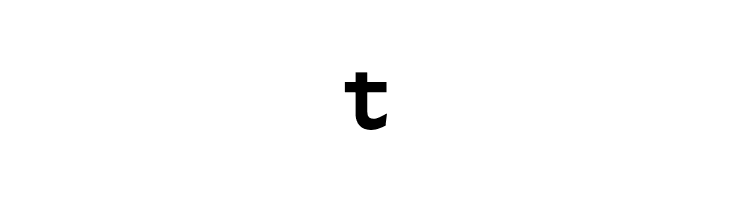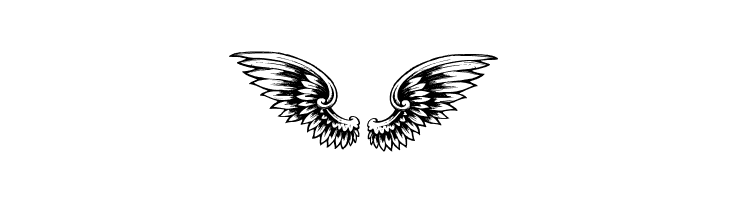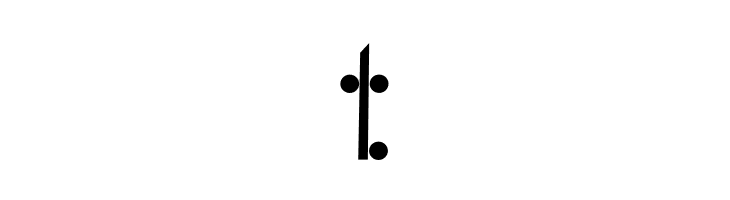
A fluid, elegant script font with a natural handwritten style.
A playful script font with characters hanging from strings, offering a whimsical and dynamic look.
A modern, semi-bold sans-serif font with clean lines and balanced proportions.
A bold, playful font with a comic book style from the 1980s.
A diverse collection of decorative wing designs, ranging from intricate to bold styles.
A bold, geometric font with angular lines and circular dots, offering a modern and artistic style.